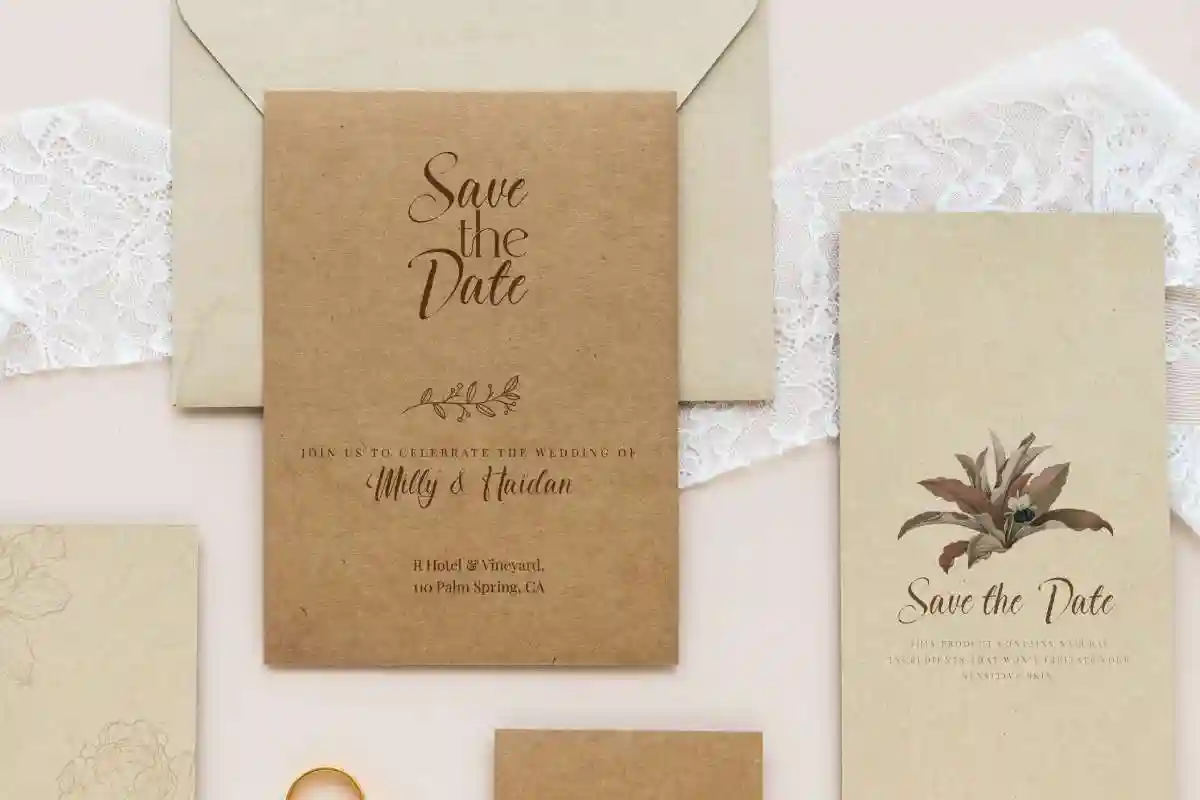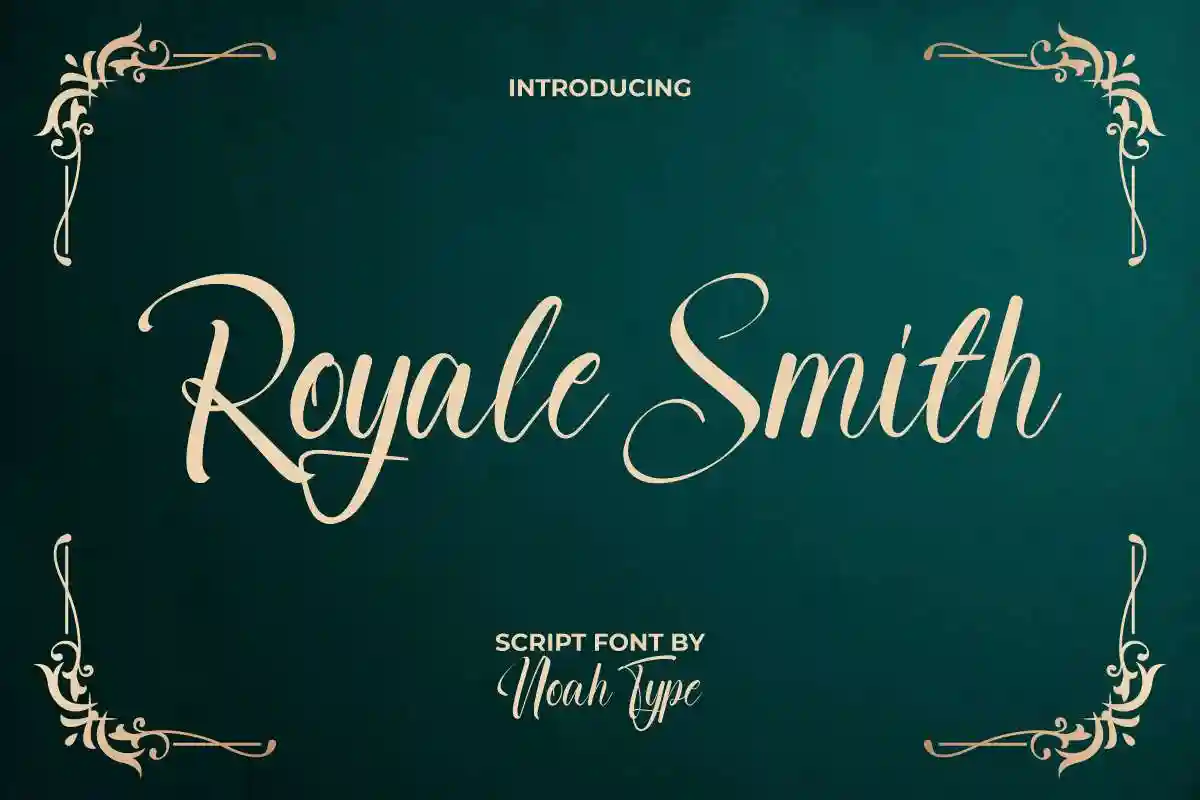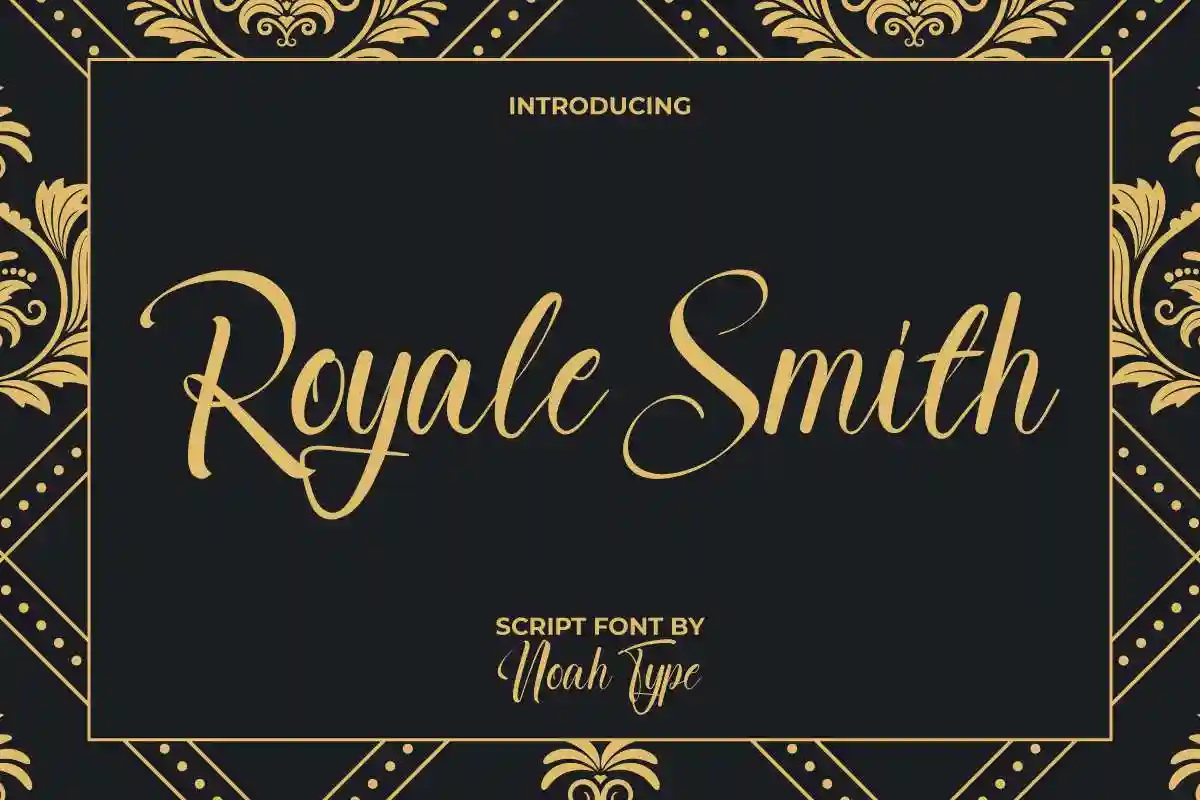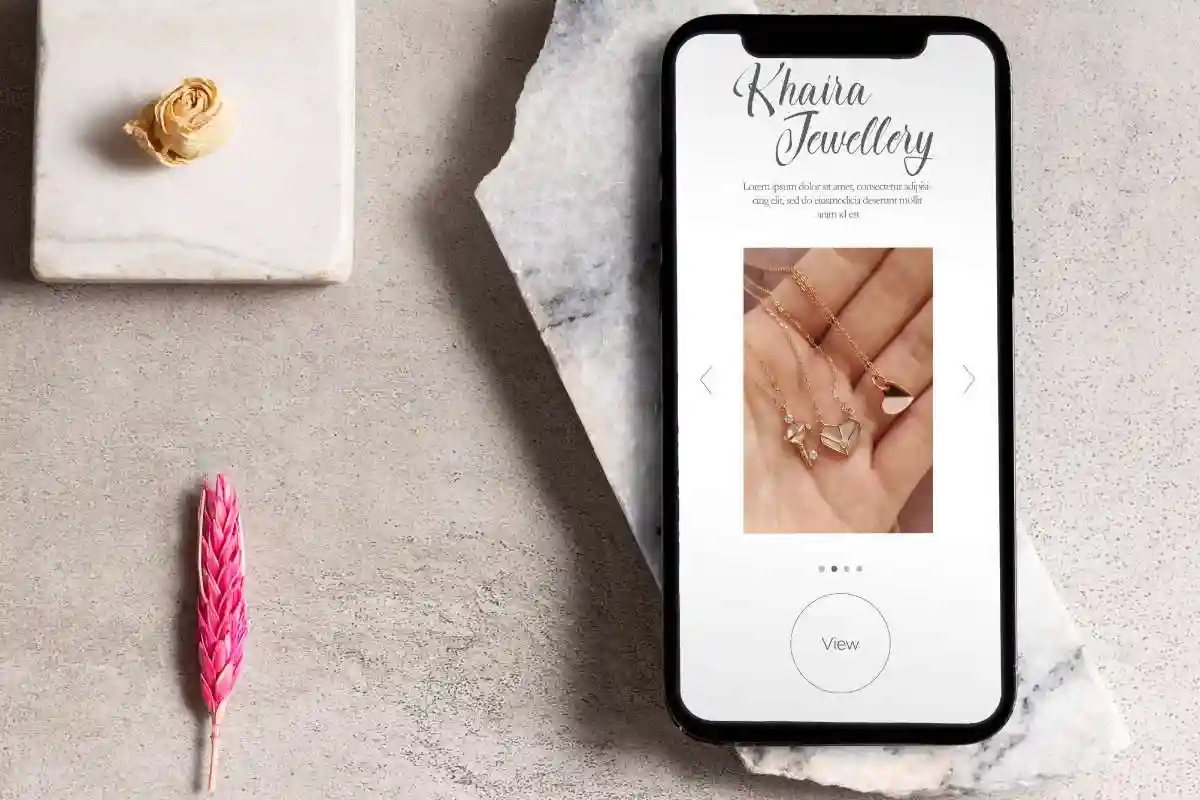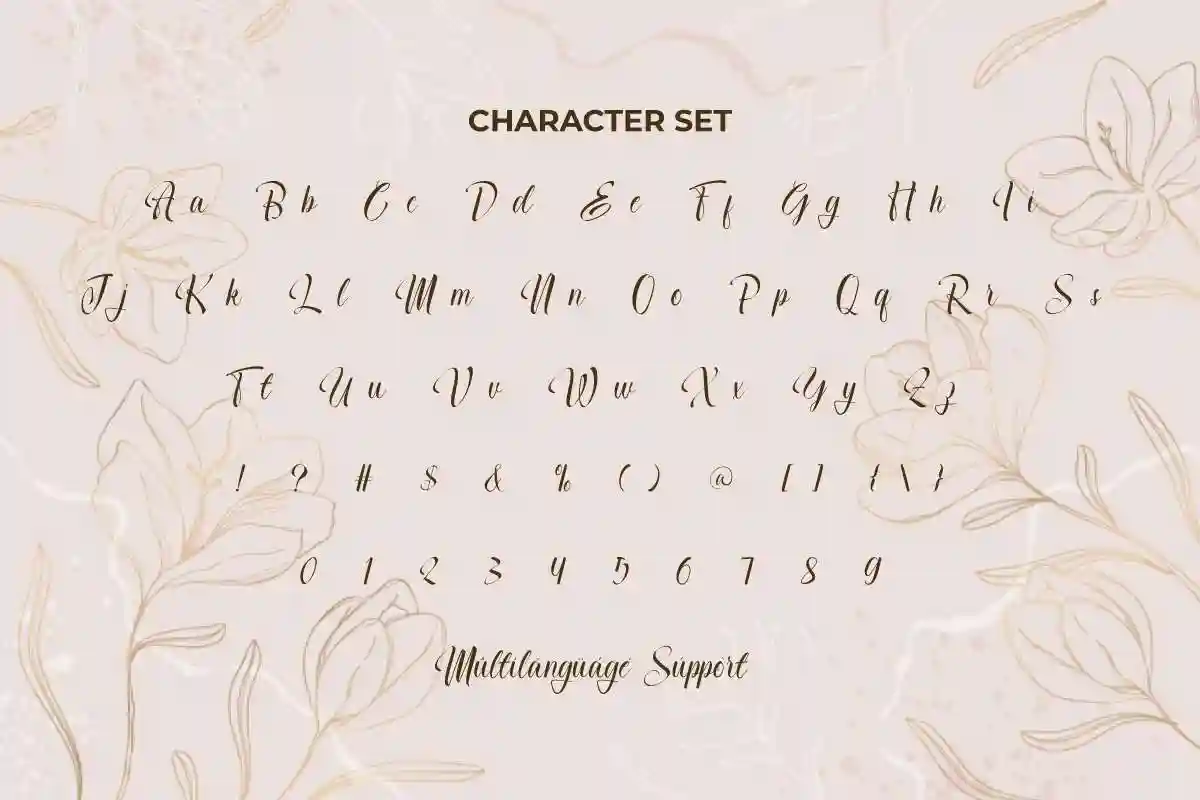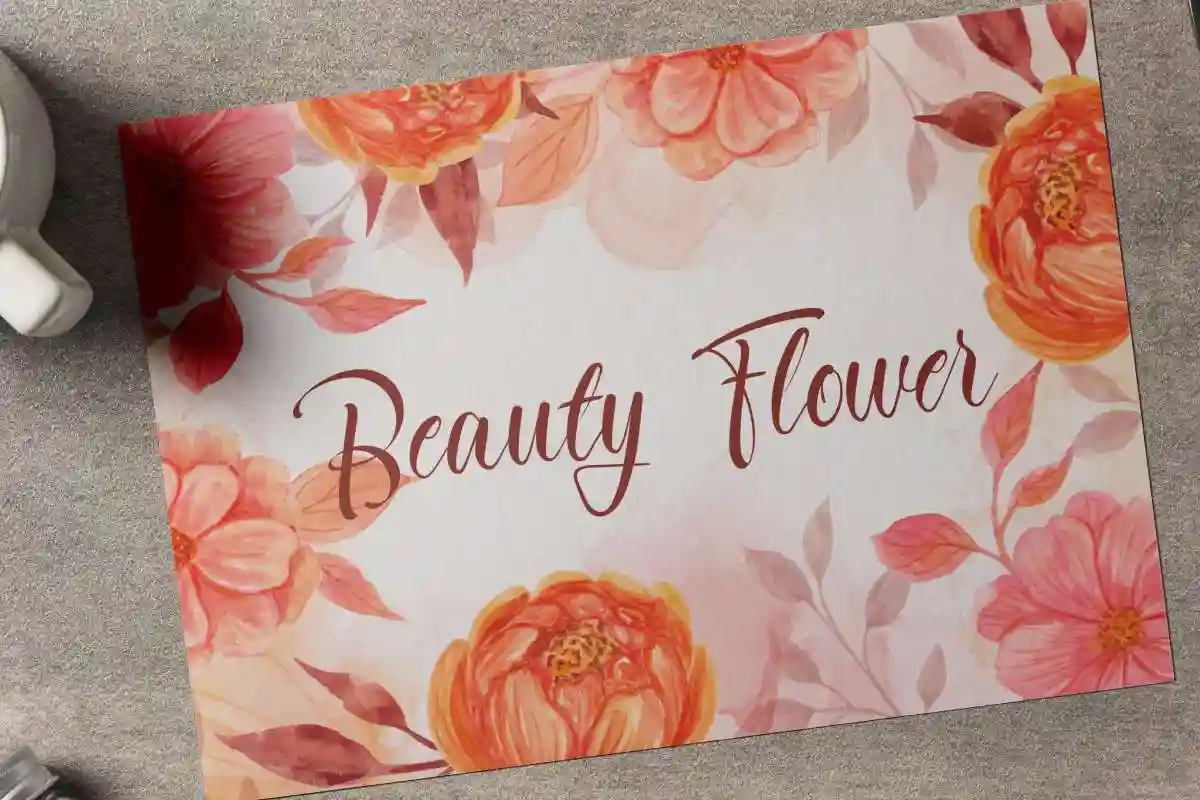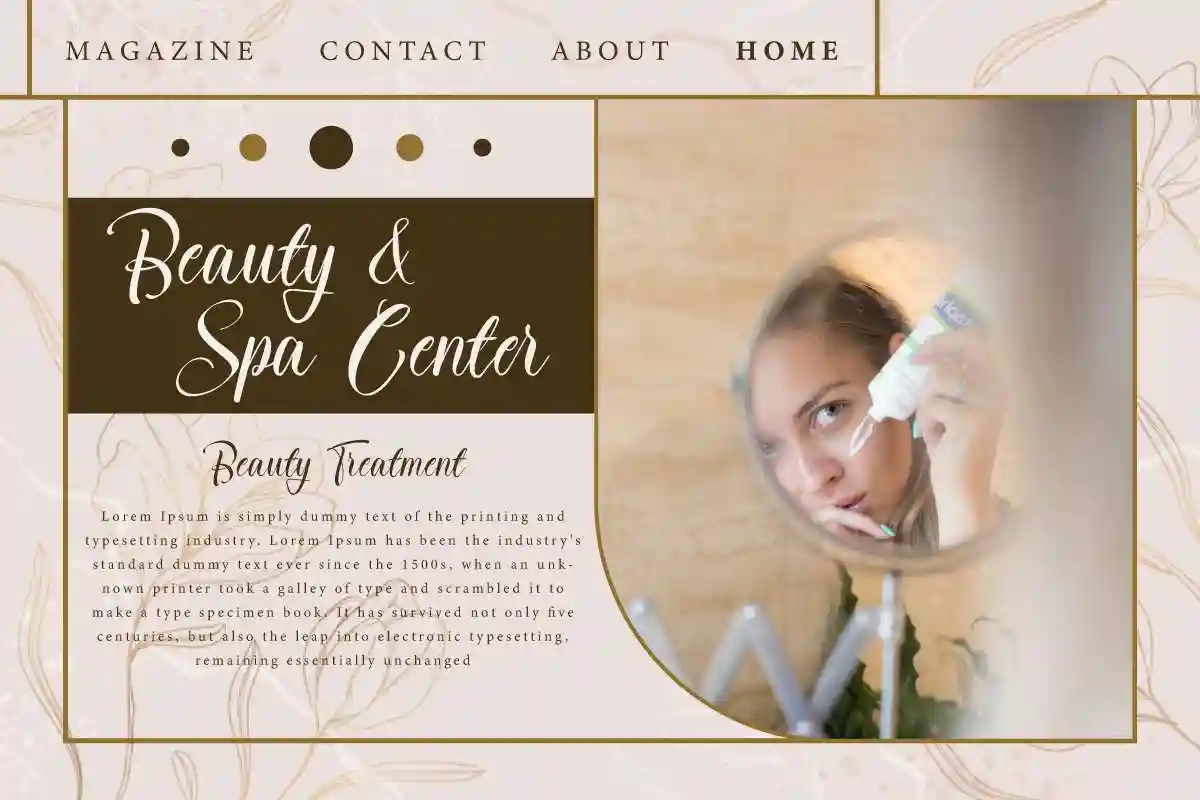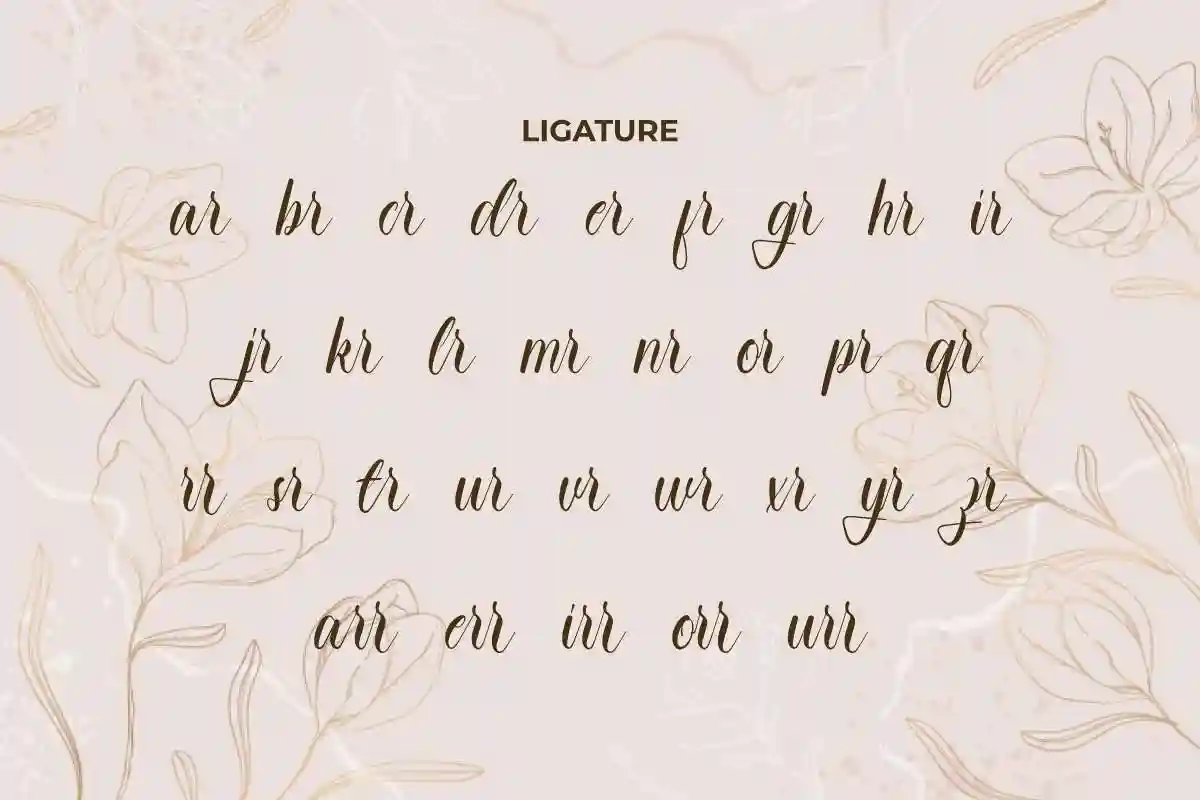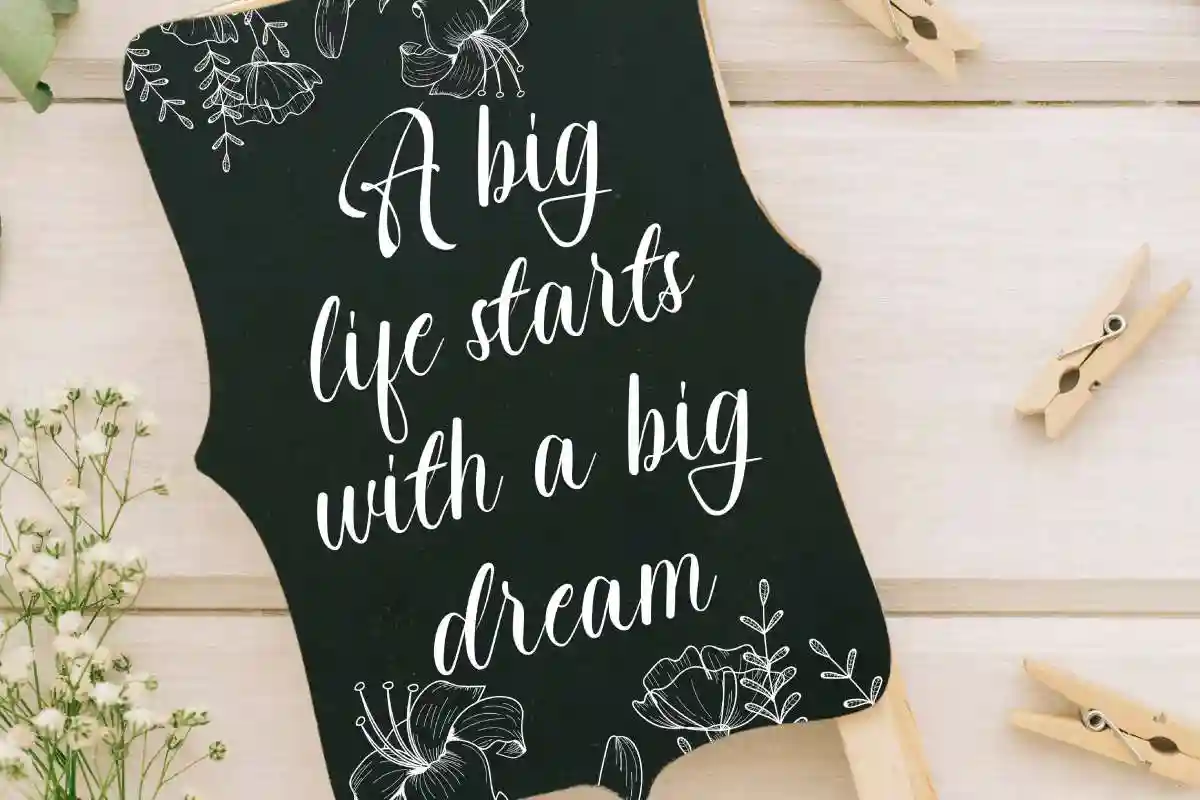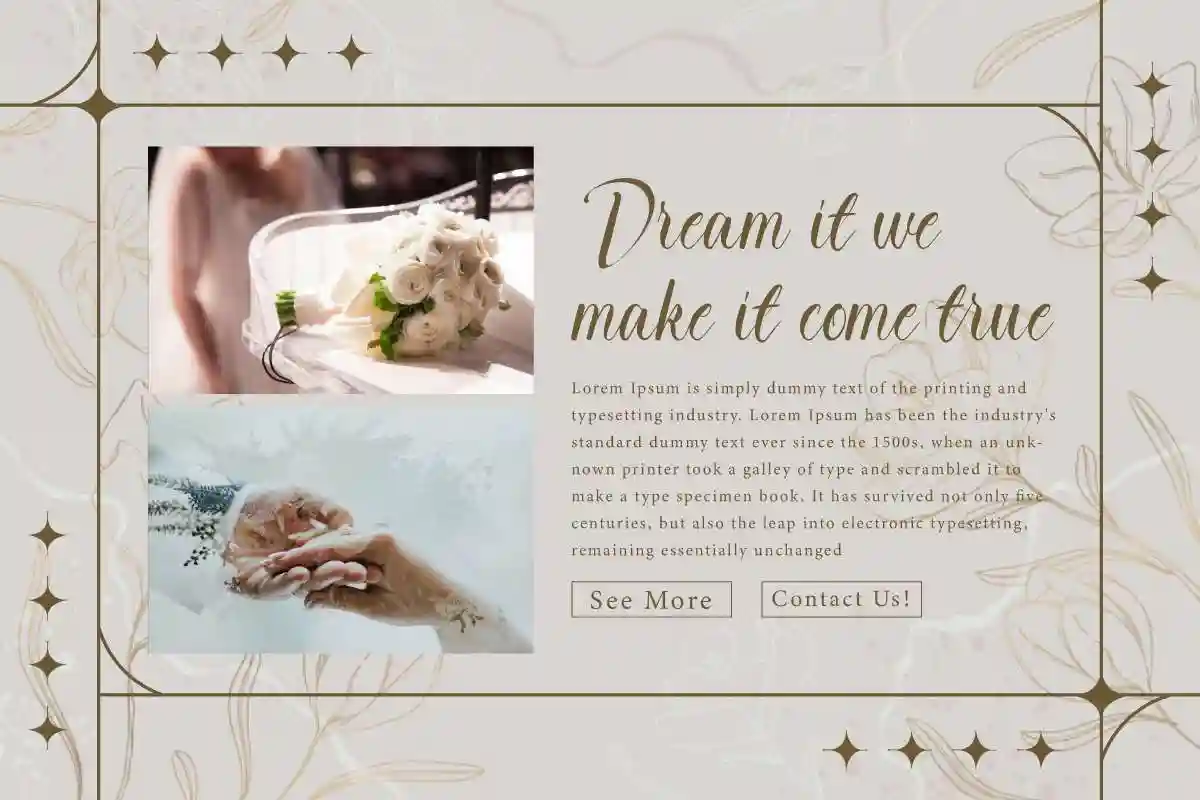
Royale Smith Font is a luxurious “royal” and fancy script font with calligraphic style. The charm that this font has makes every design you make look expensive like a work of royal art, such as business card, custom design, invitation, label, magazine catalog, menu, poster, product packaging, quote, title, website, and more!
Royale Smith Font includes full set of Uppercase and Lowercase Basic Characters, Numerals, Punctuation, and Symbol. It also contain Ligature characters that will make it amazing and suitable for many industries, such as cosmetic, fashion, florist, furniture, interior design, perfume, restaurant, skincare, spa and salon, wedding or event organizer, etc.